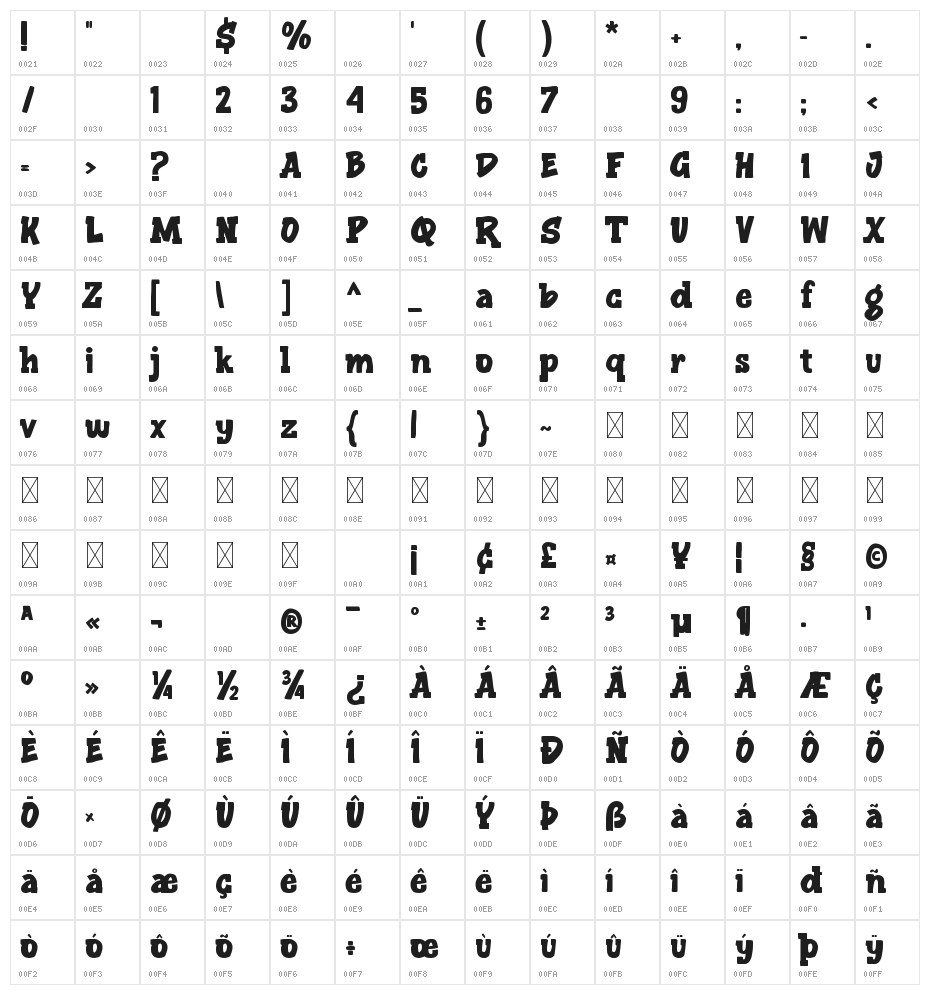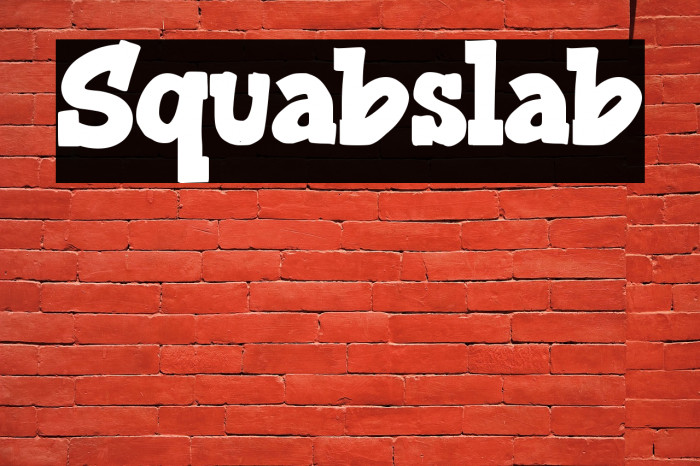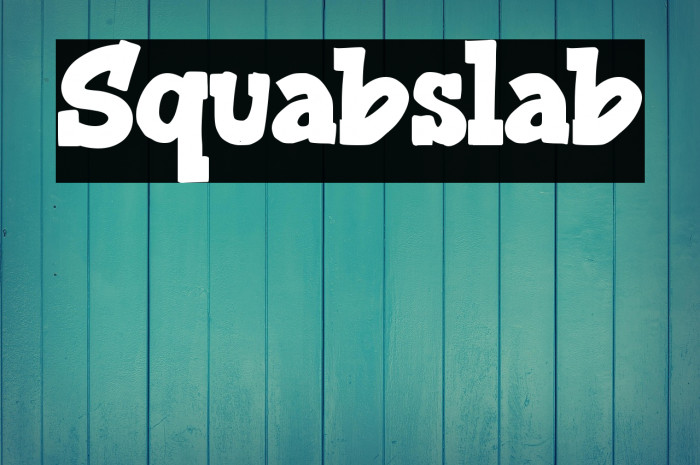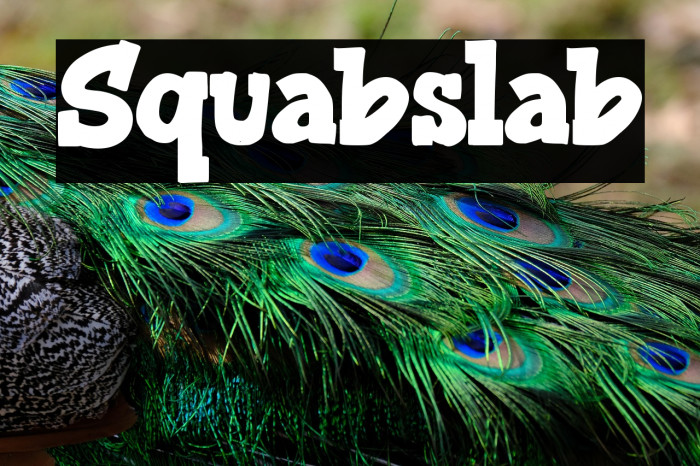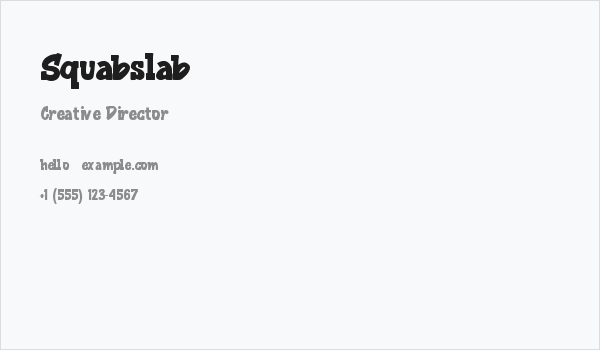
Squabslab Font
Squabslab Description
This font is a bold and playful slab serif with a distinctive, chunky appearance. The letters are heavily weighted, giving them a strong presence on the page. The strokes are thick and consistent, with minimal contrast, creating a uniform look. The characters have a slightly rounded finish, adding a touch of softness to the otherwise robust design. The uppercase letters are particularly striking, with wide, confident lines that make them stand out. The lowercase letters maintain the same boldness, ensuring readability and consistency. Numbers and special characters are designed with the same attention to detail, making them easily recognizable and visually appealing. This font is ideal for projects that require a bold, eye-catching typeface with a touch of whimsy.
| Proposed Projects | Ideal for headlines, posters, branding, and any design needing a strong, playful typeface. |